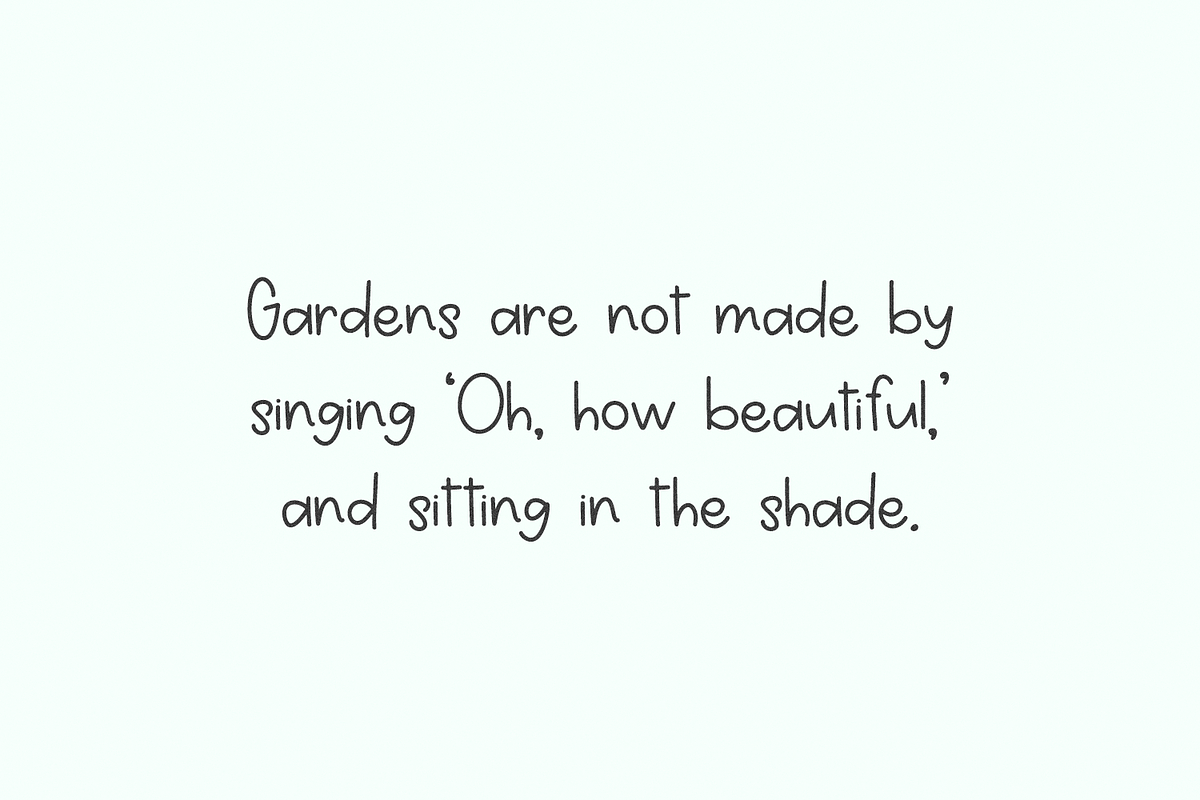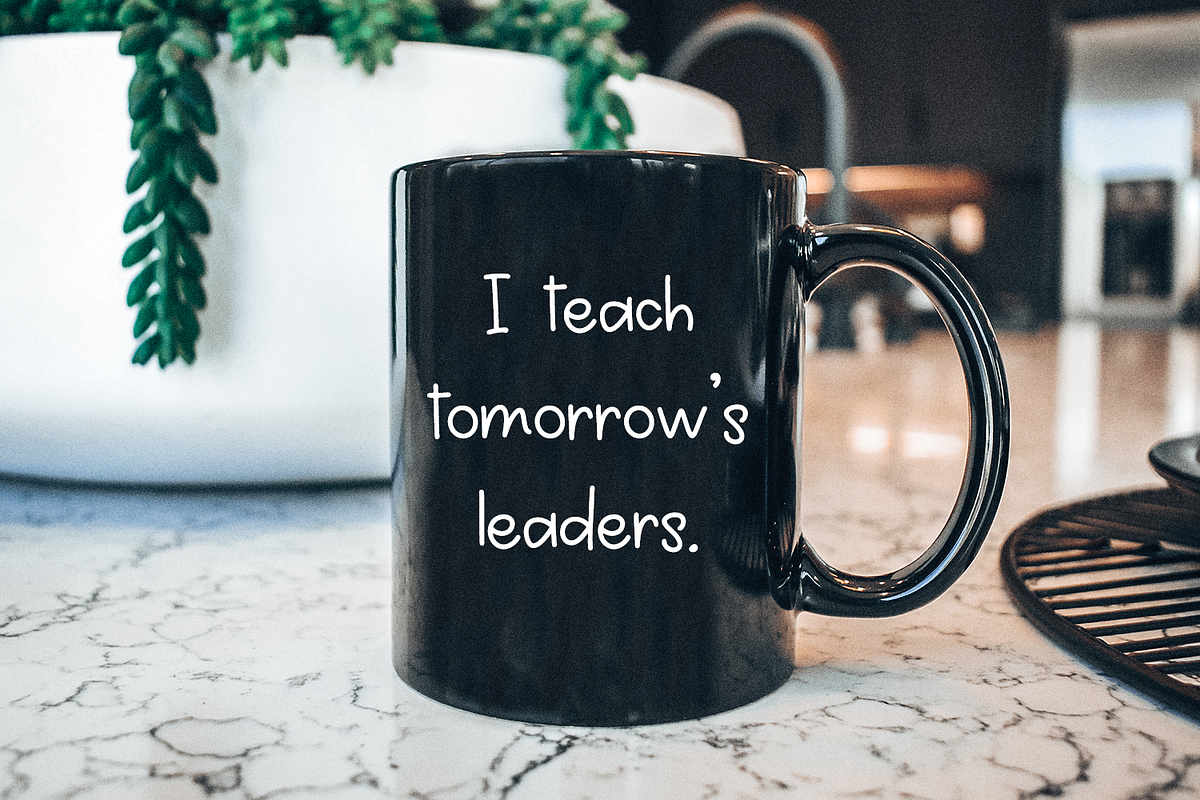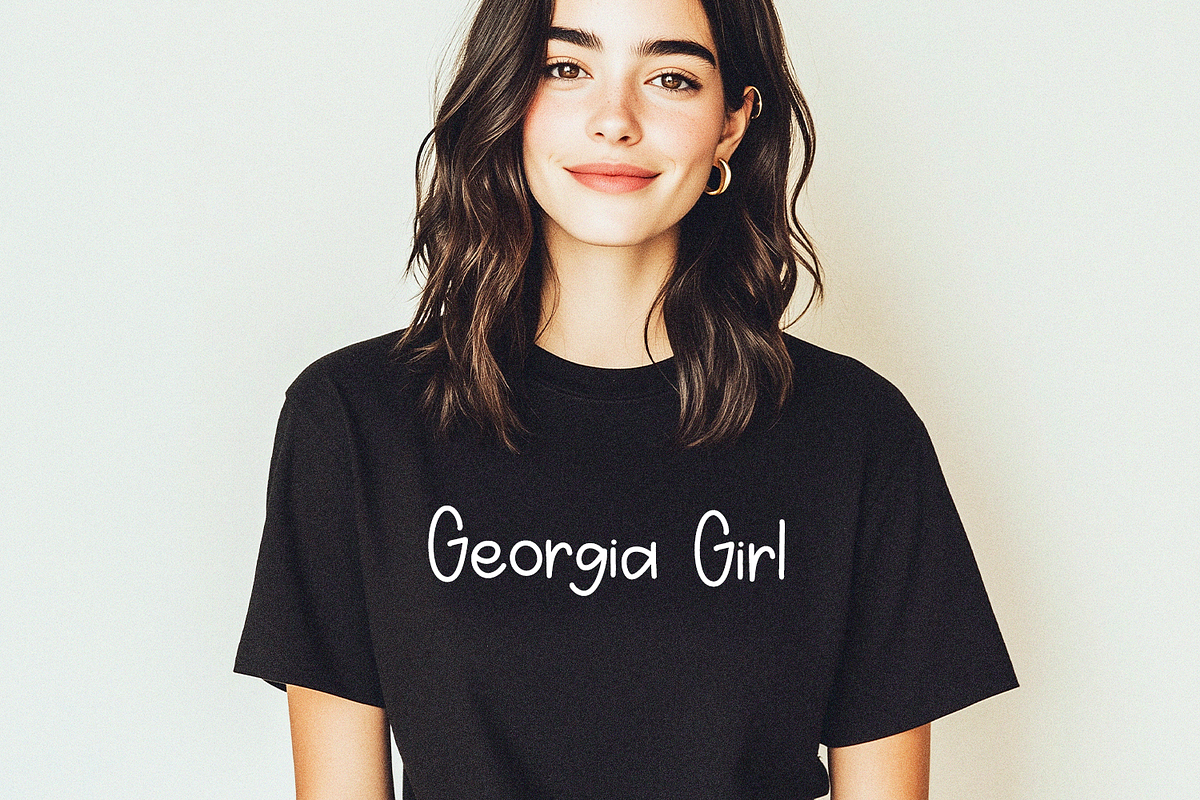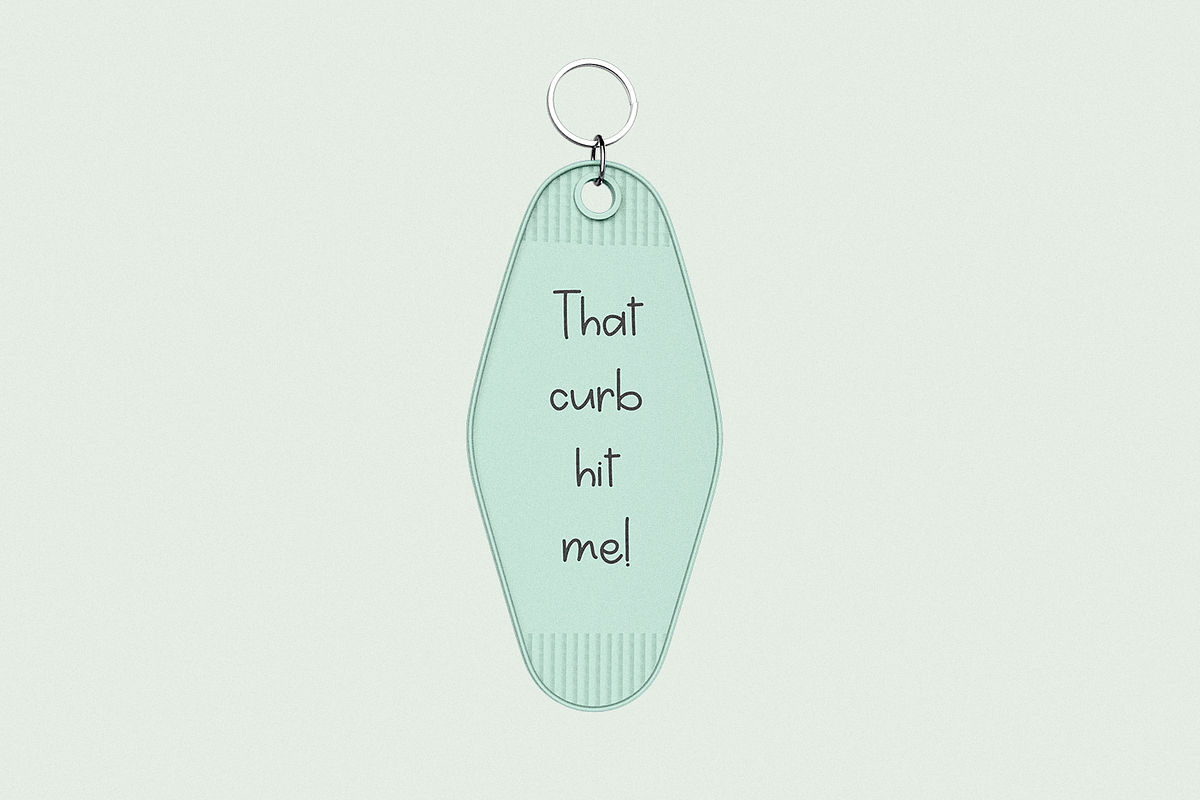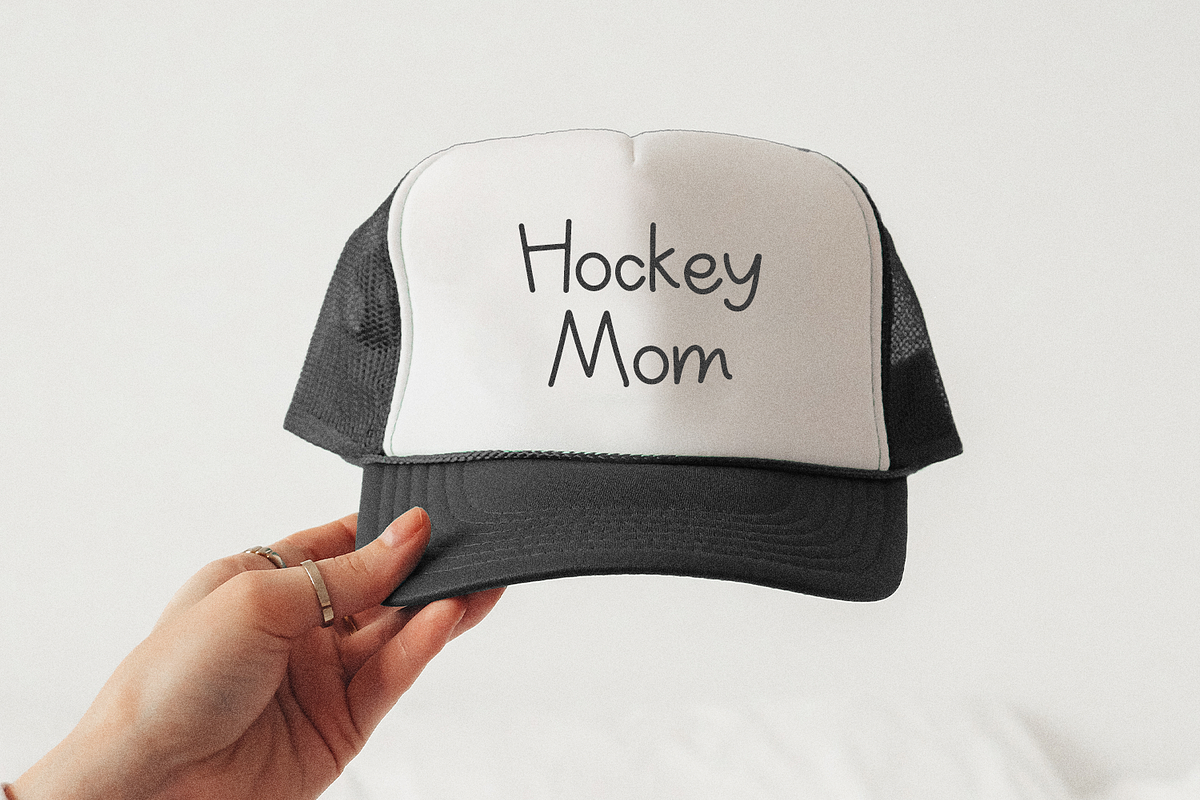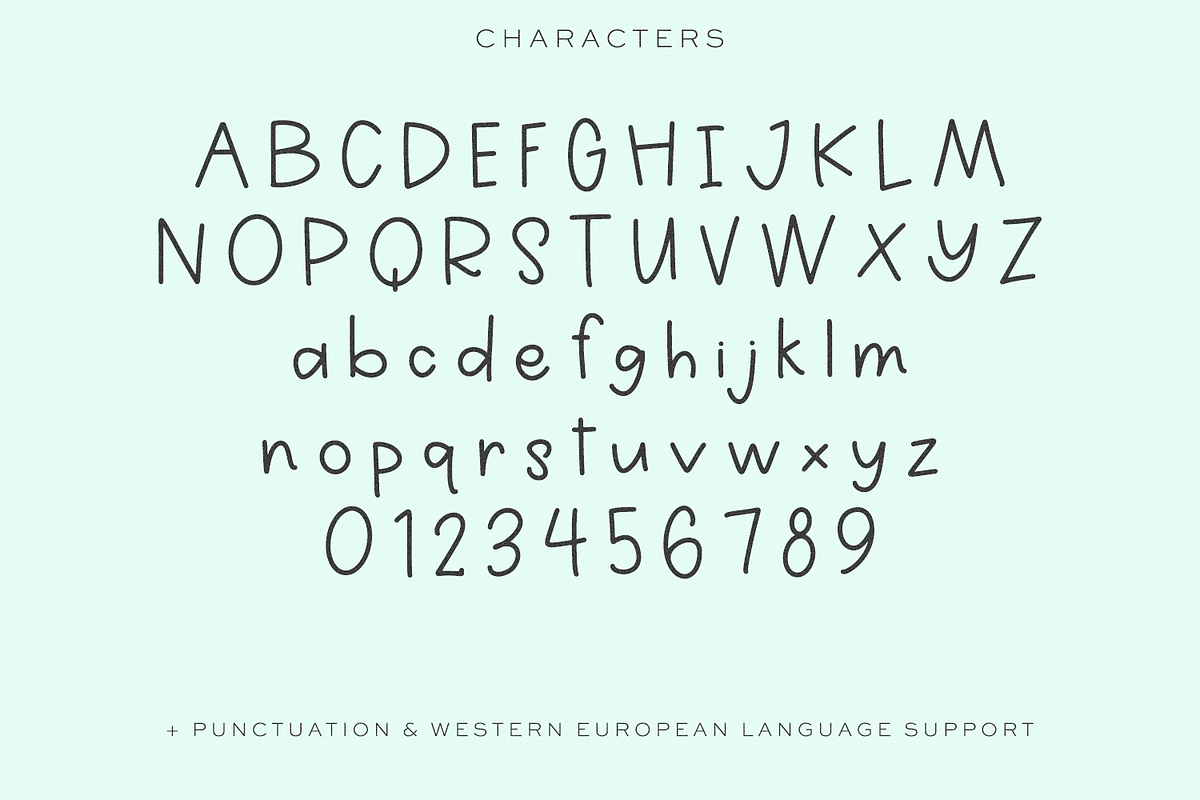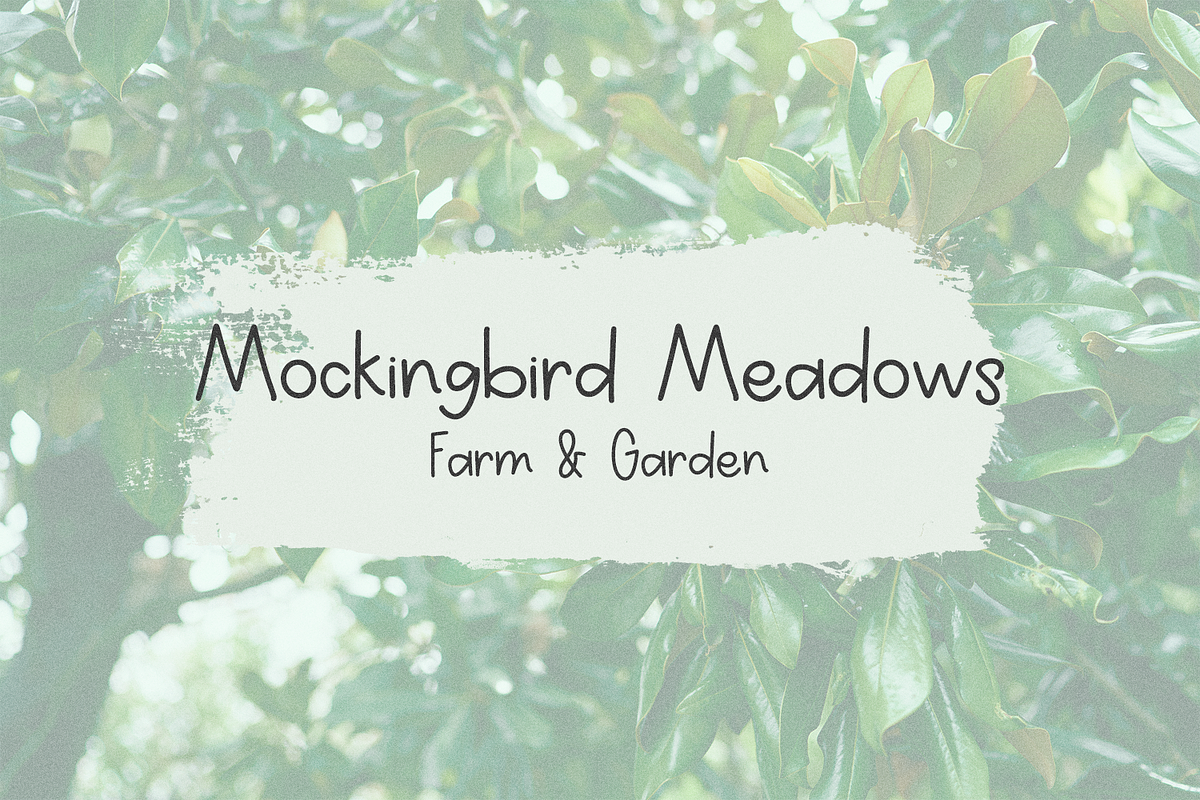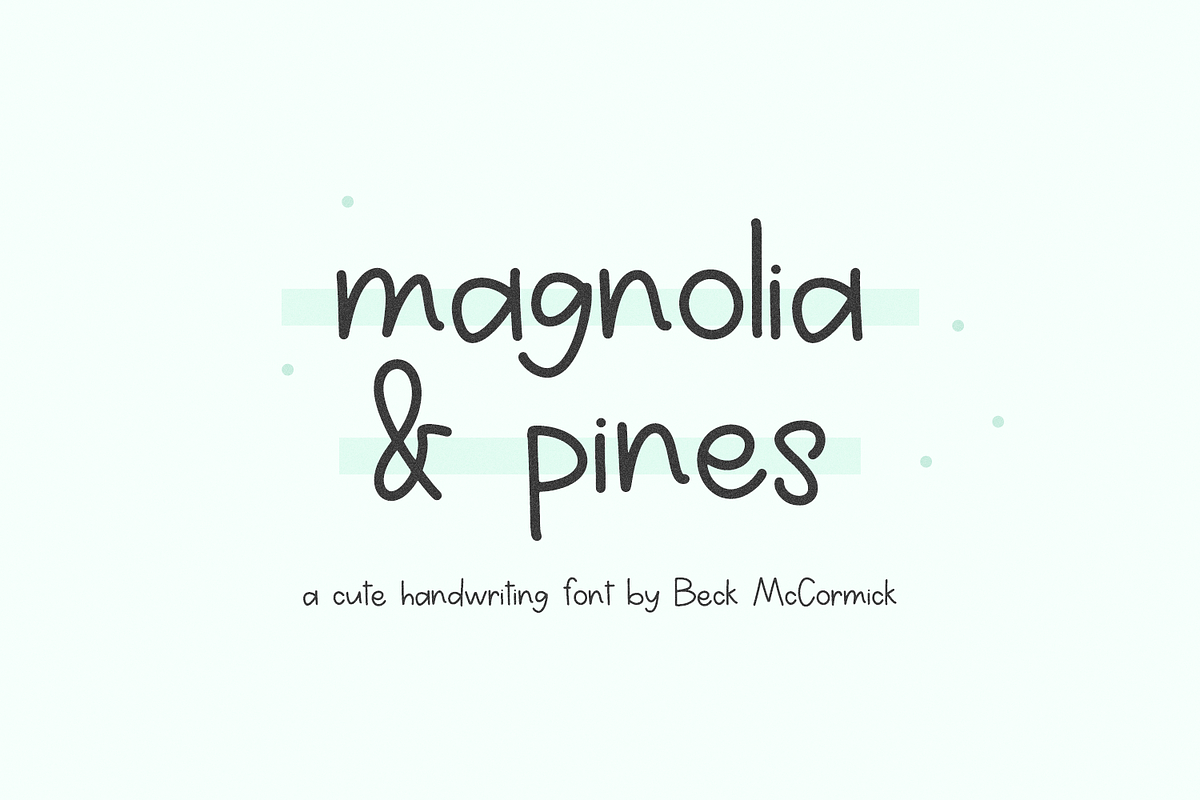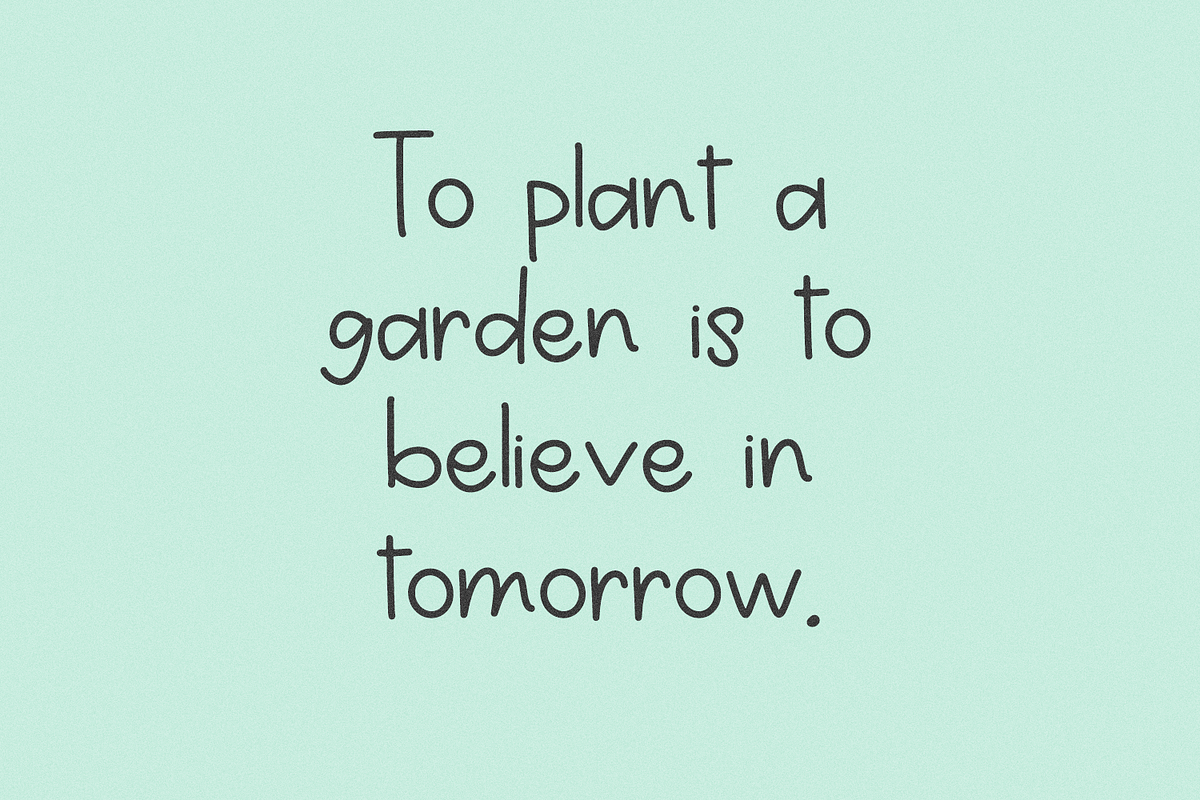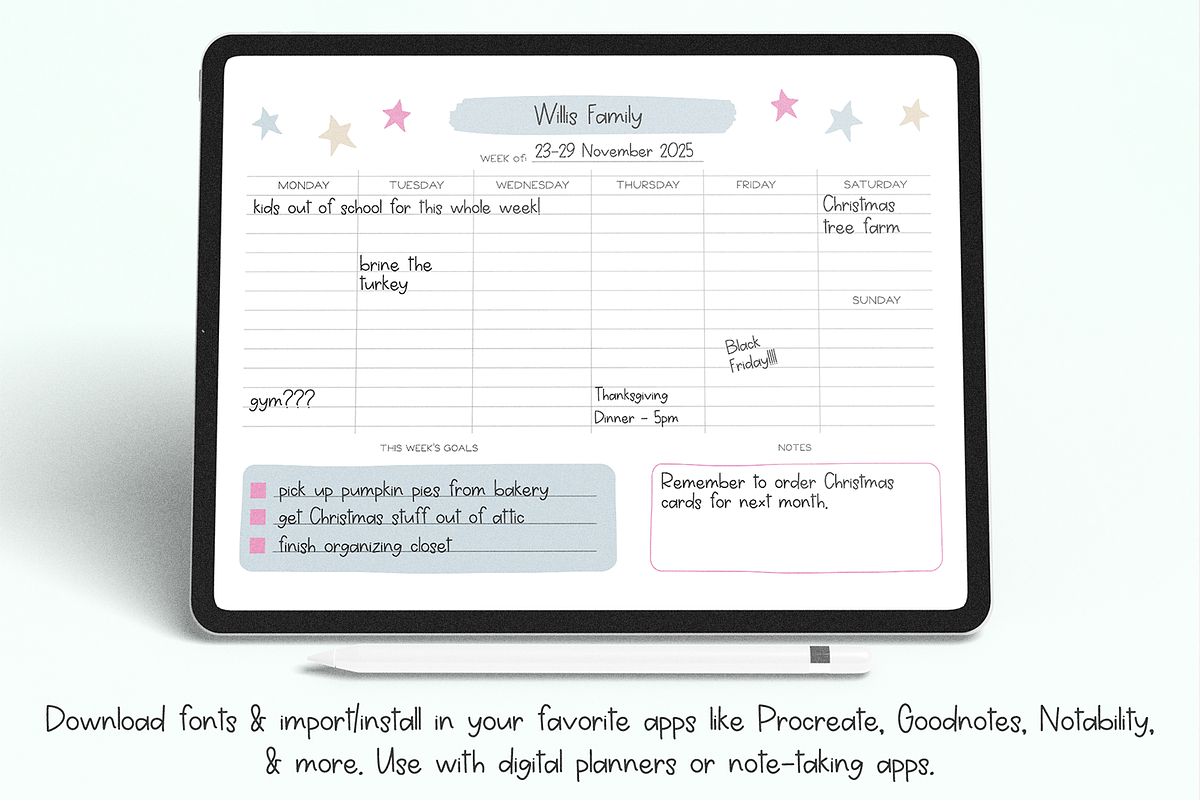
Magnolia & Pines Sans
Magnolia & Pines Sans is an adorable handwritten sans font. This font is neat & tidy. Magnolia & Pines Sans is perfect for logos & branding, greeting cards, painted banners, digital planners, note-taking apps, Canva, Cricut projects, Silhouette projects, designing SVG files, laser cutting projects, & more.
Magnolia & Pines Sans includes:
- full upper + lowercase characters
- numbers + punctuation
- Western European language support - English, French, Spanish, Portuguese (Brazil), Portuguese (Portugal), Italian, German (Germany), German (Austria), Dutch, Danish, Swedish, Norwegian (Bokmål and Nynorsk), Finnish, Icelandic, Irish, Welsh